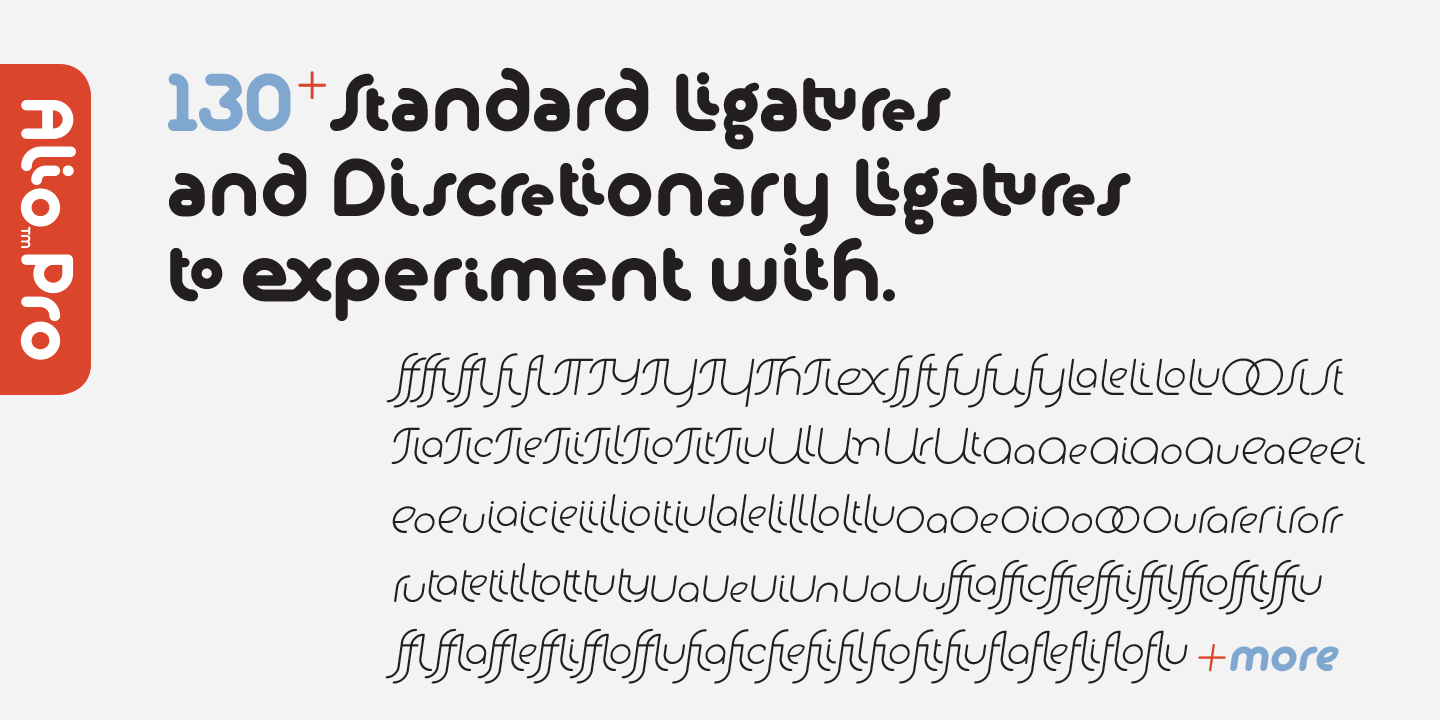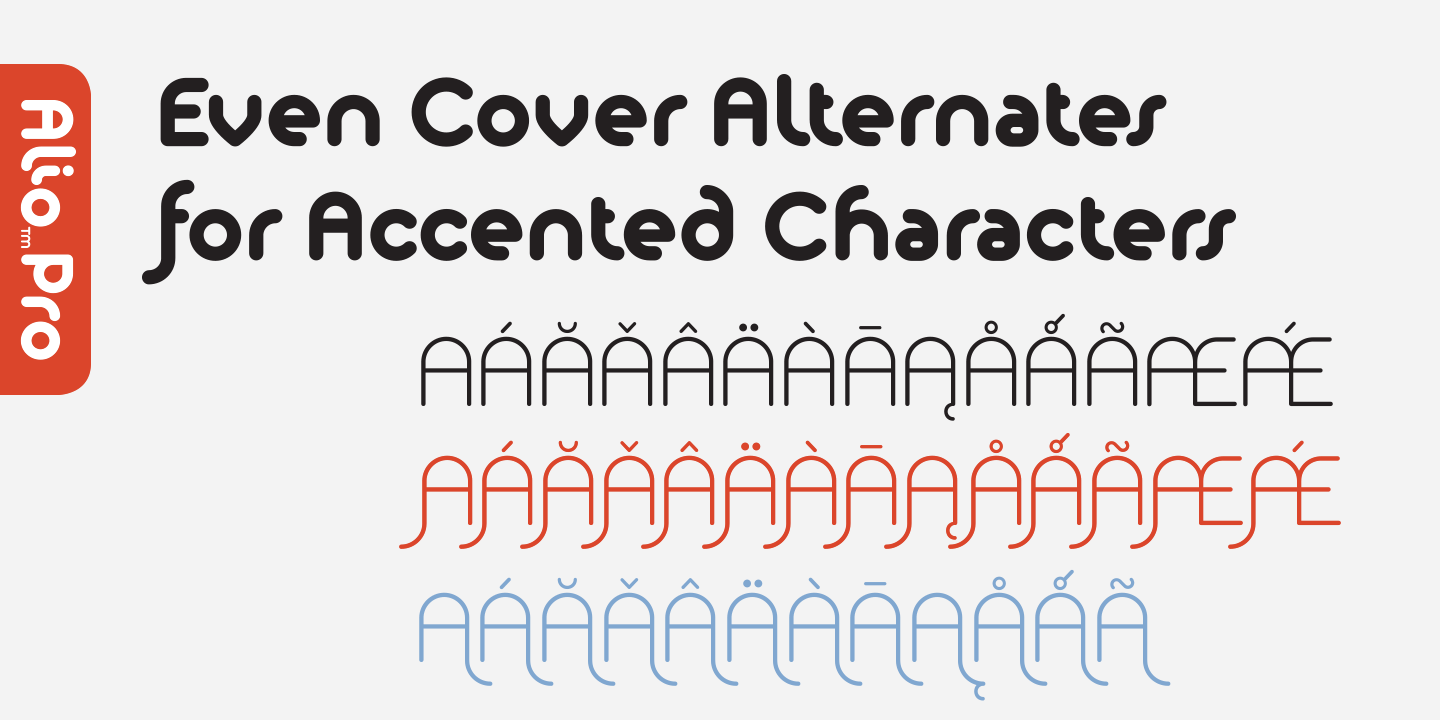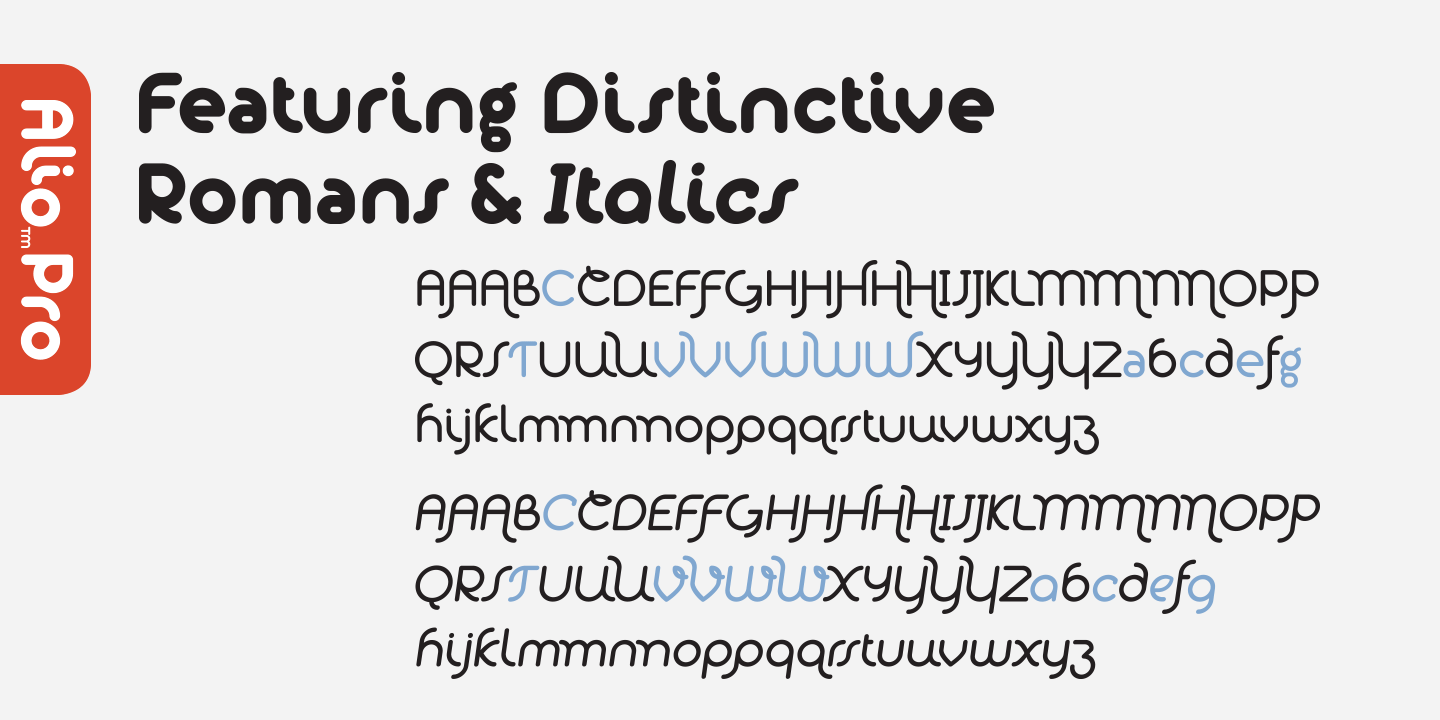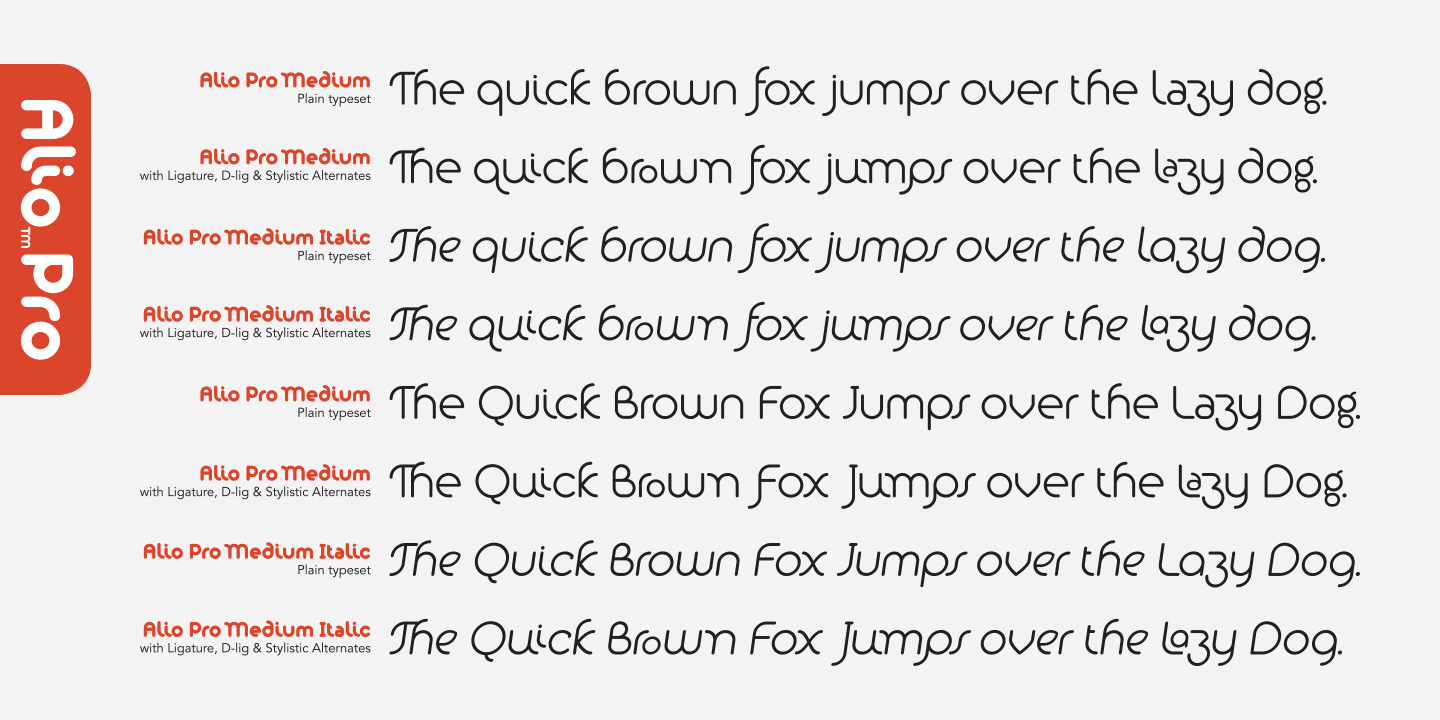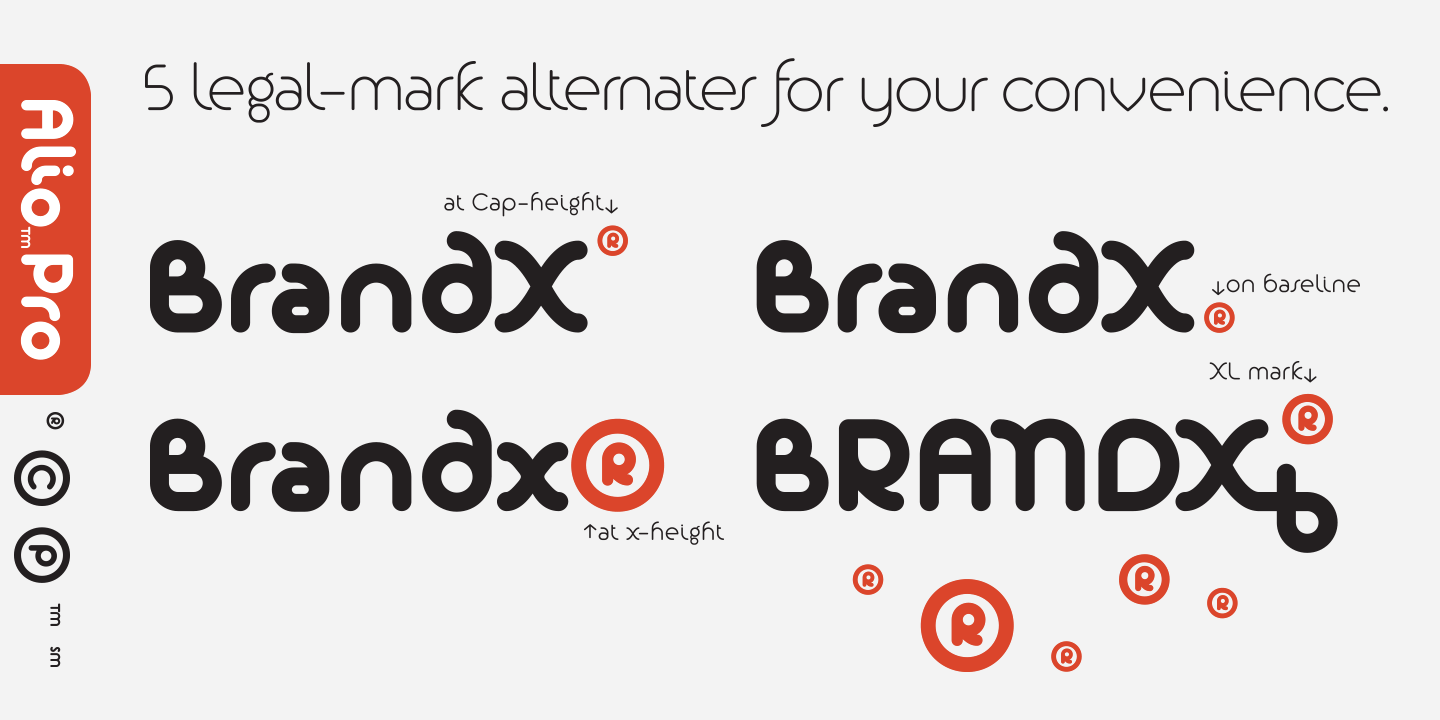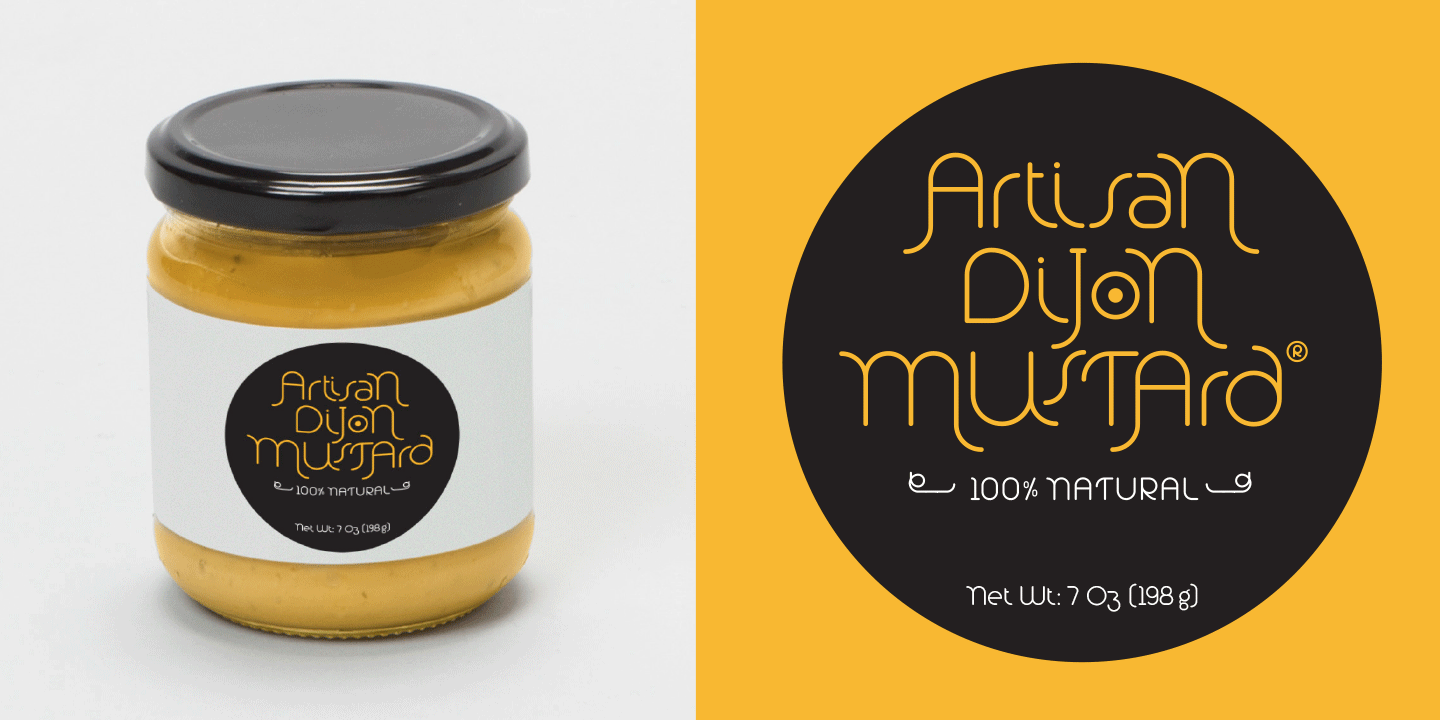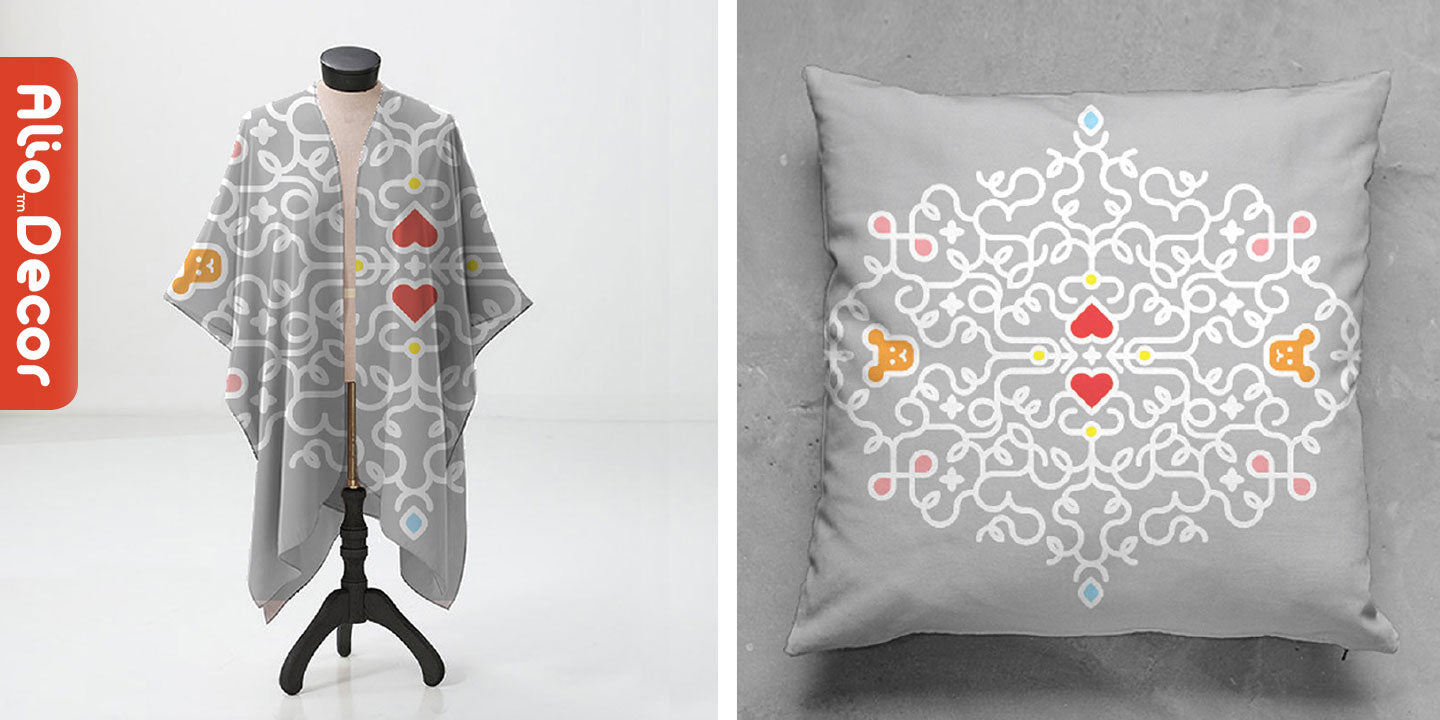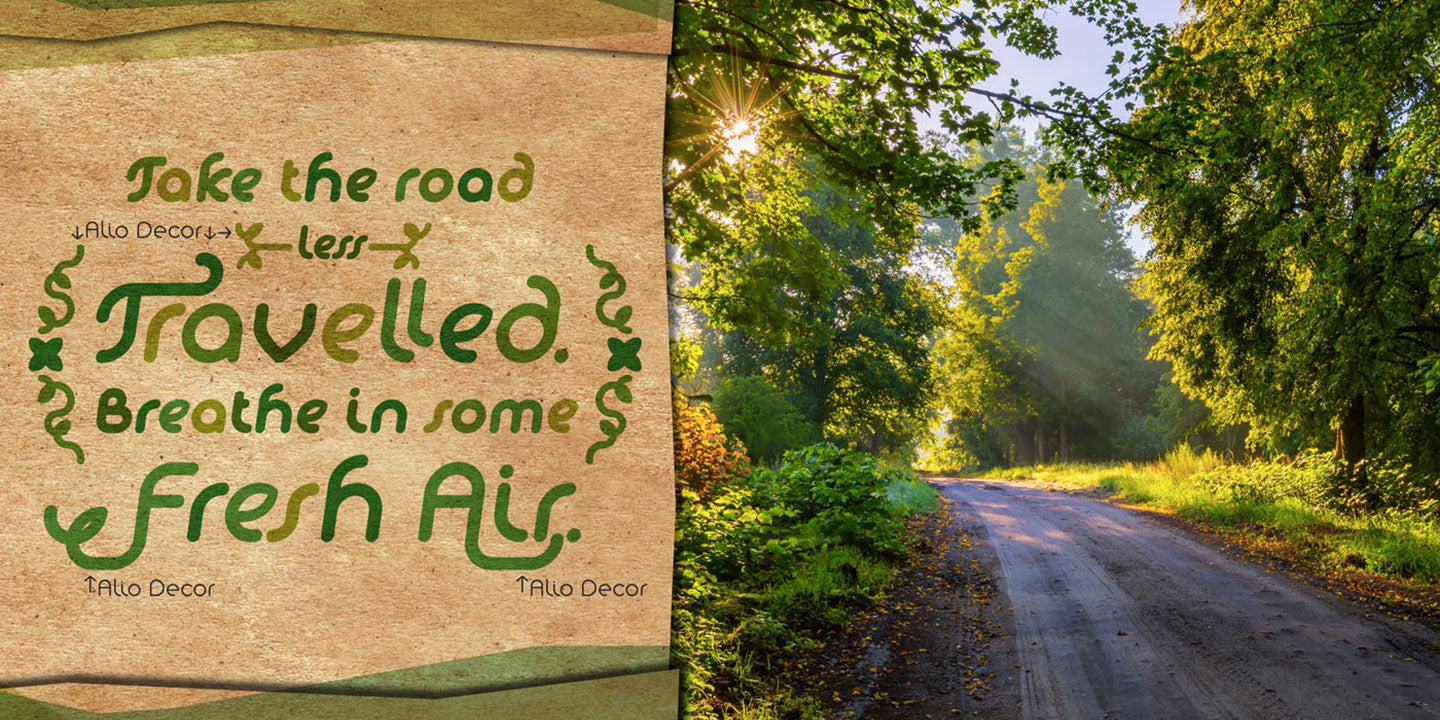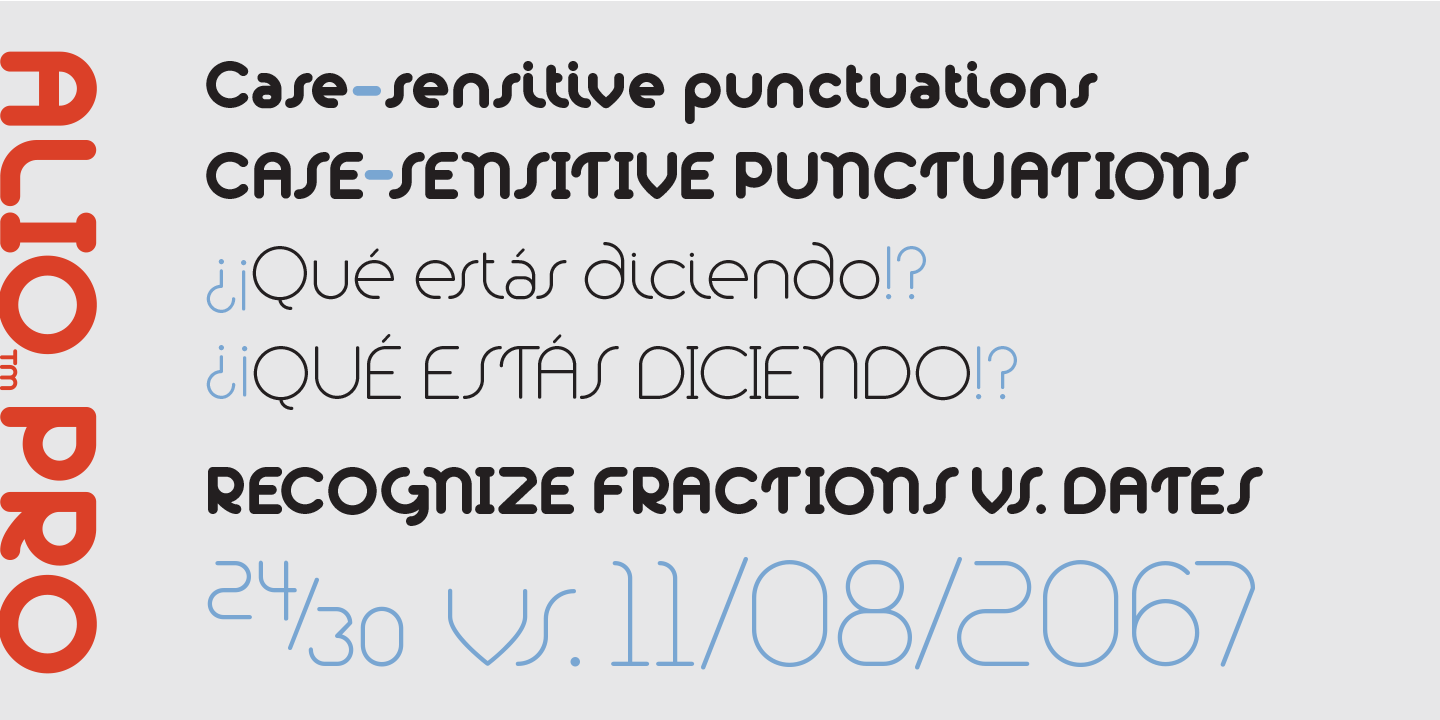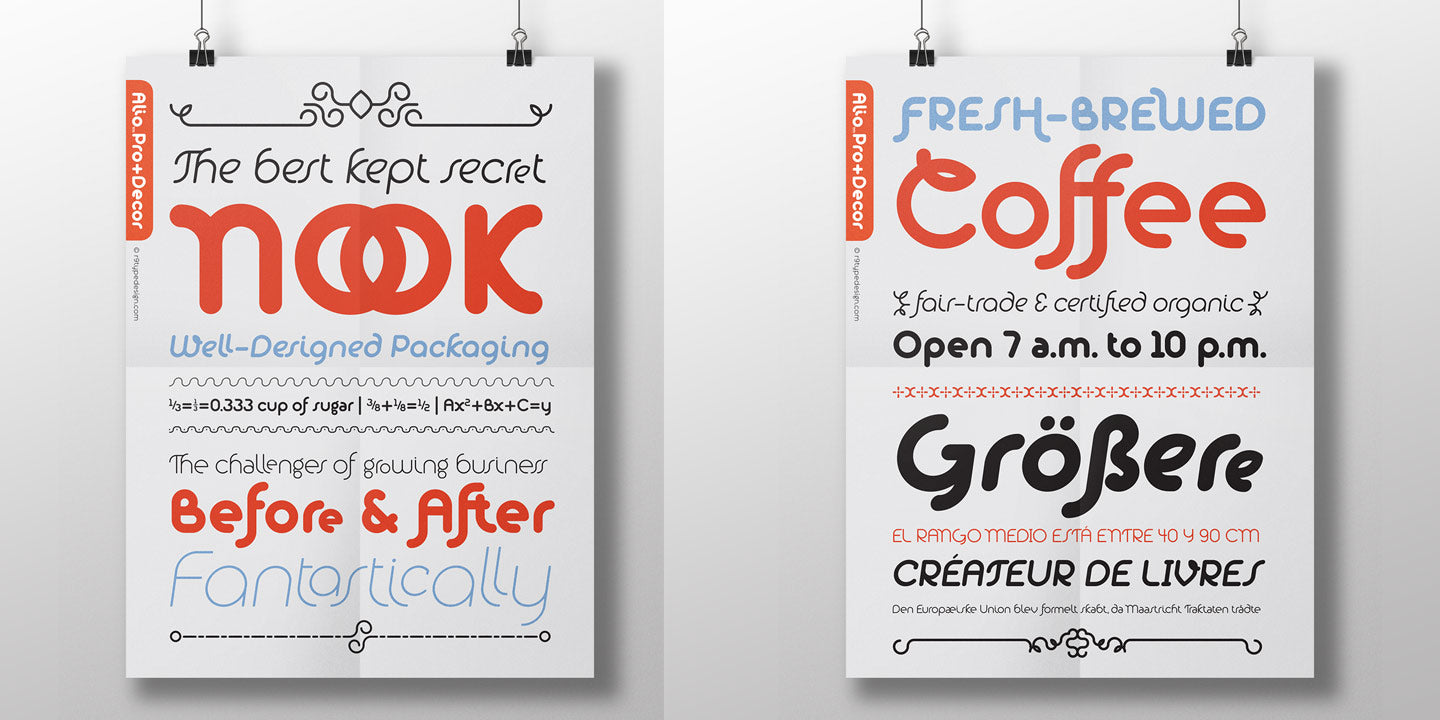
Alio™—Where Sans Serif Meets a Creative Flow.
Alio™ is a unique hybrid, blending the clean lines of a sans serif with the fluid grace of a cursive. This modular design gives you endless options to play and create. Simply let your creativity flow, and you'll find it easy to craft everything from minimalistic, modern designs to elegant, decorative flourishes.
• Alio Pro: The complete family with 6 weights and 12 font styles (Roman and Italic). Each font style includes over 700 glyphs, with hundreds of ligatures, discretionary ligatures, and stylistic alternates. This makes it a go-to for logos, branding, posters, book covers, store signs, packaging, and high-end editorial design.